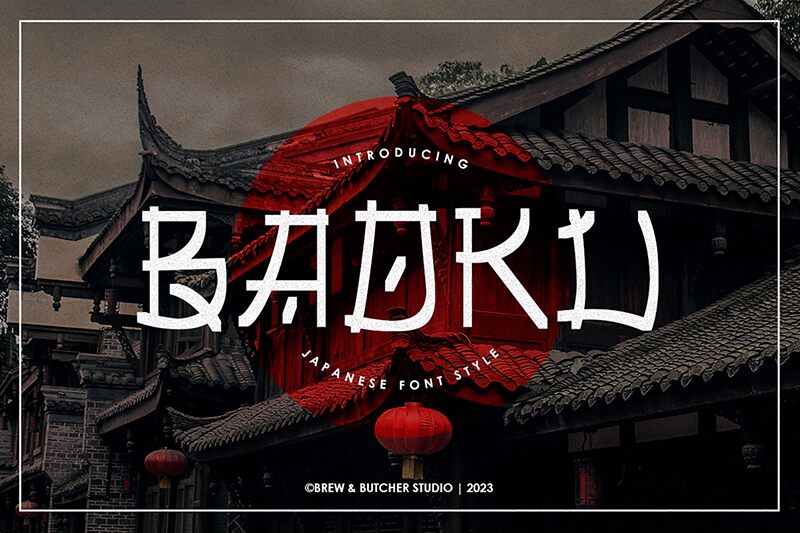
Baoku font family by Brew and Butcher Studio has 2 font styles. The elements in these letter designs draw inspiration from Japanese typography and urban areas that embrace pop culture. The aesthetic created remains grunge due to the brush textured strokes, while elements like geometric bends near the edges retain the modern ambiance. Despite the straight symmetrical nature, the hurried handwriting of calligraphy inspired often comes across.
Designers conscious of creating art that reflects not only energy but culture would benefit immensely from using this font. It has a raw presence that can equally portray mystery or strength in movie posters, banners, magazine covers, advertisements, and branding designs. The font can be used on digital applications like games and websites or printed out on apparels like t-shirts and caps.